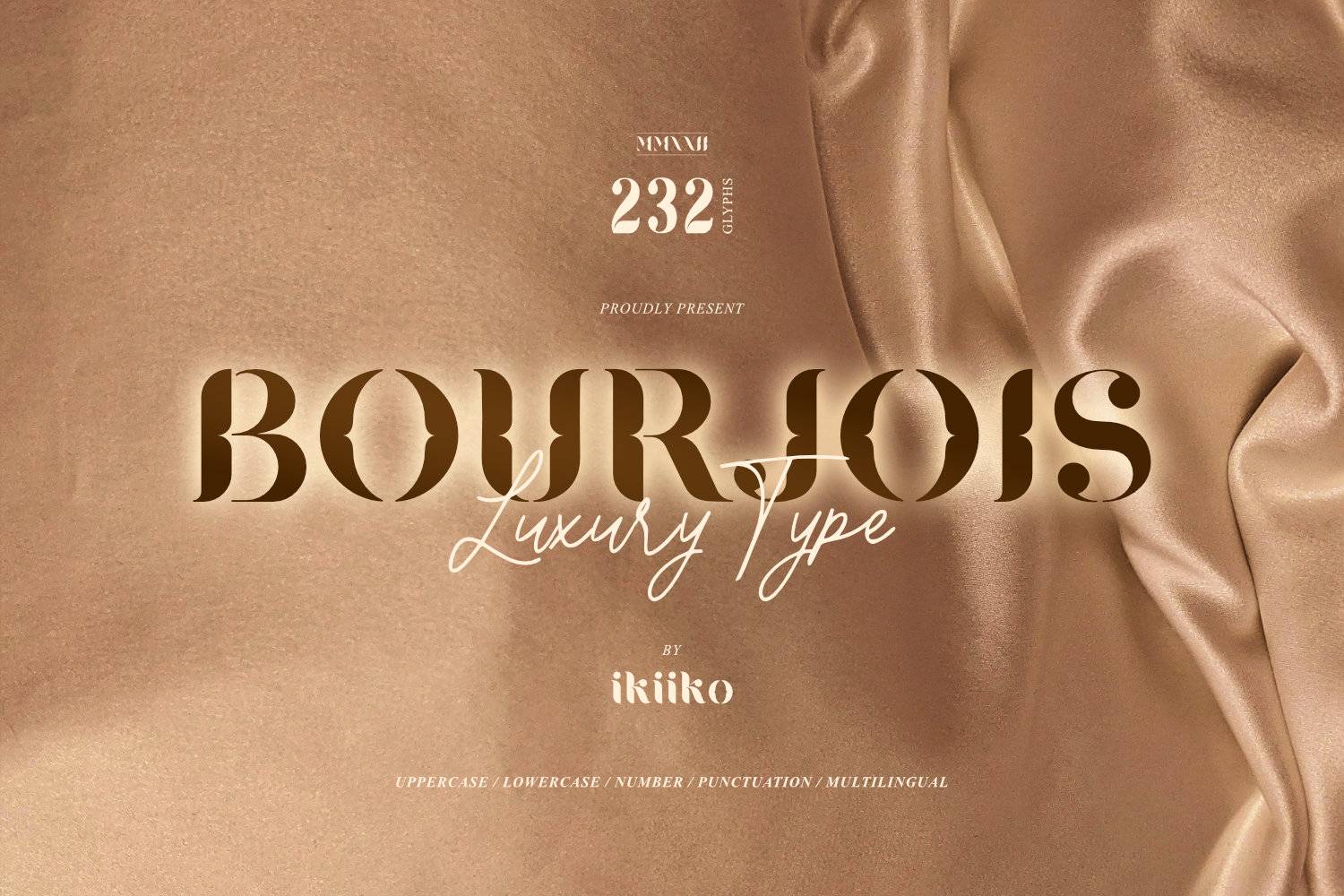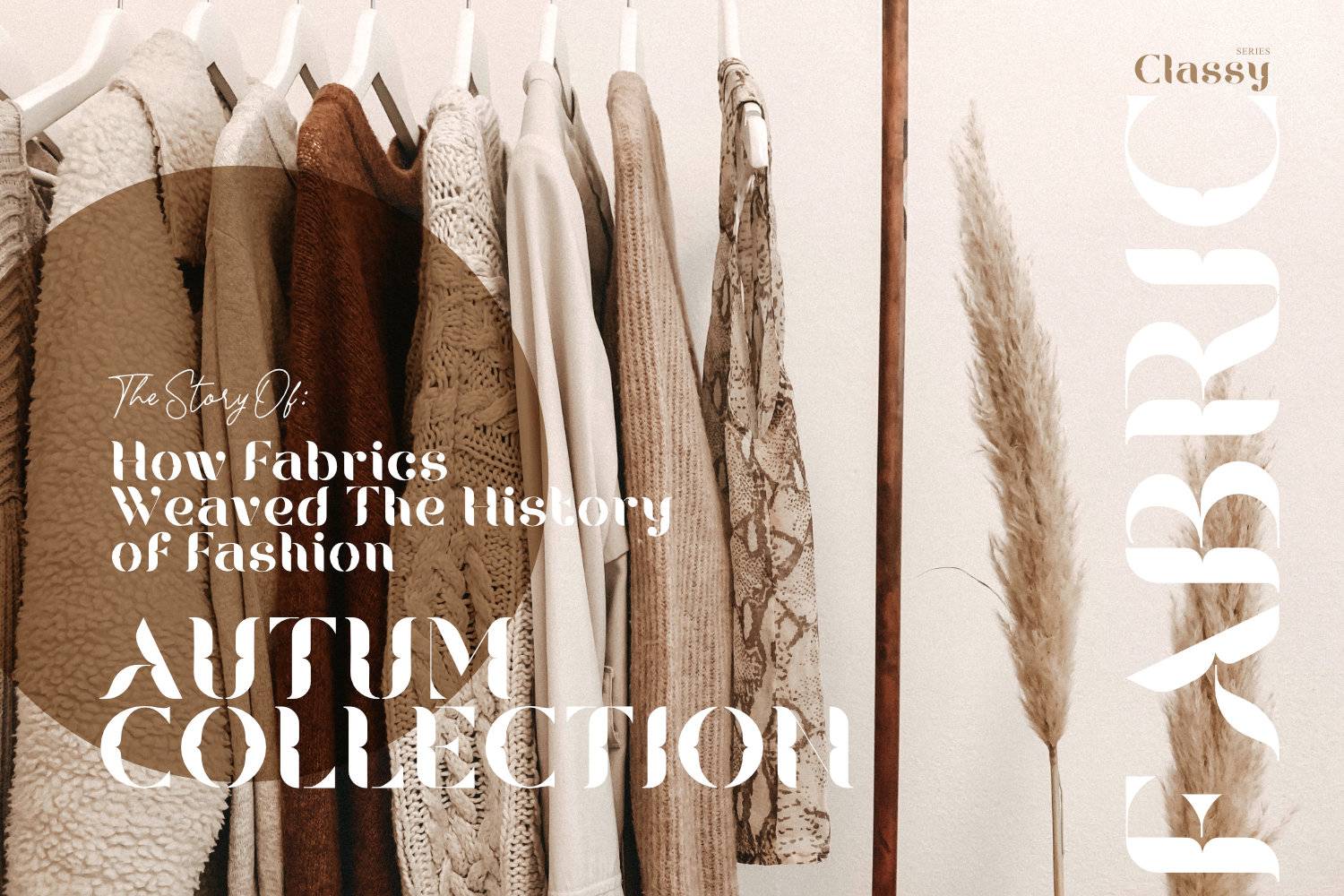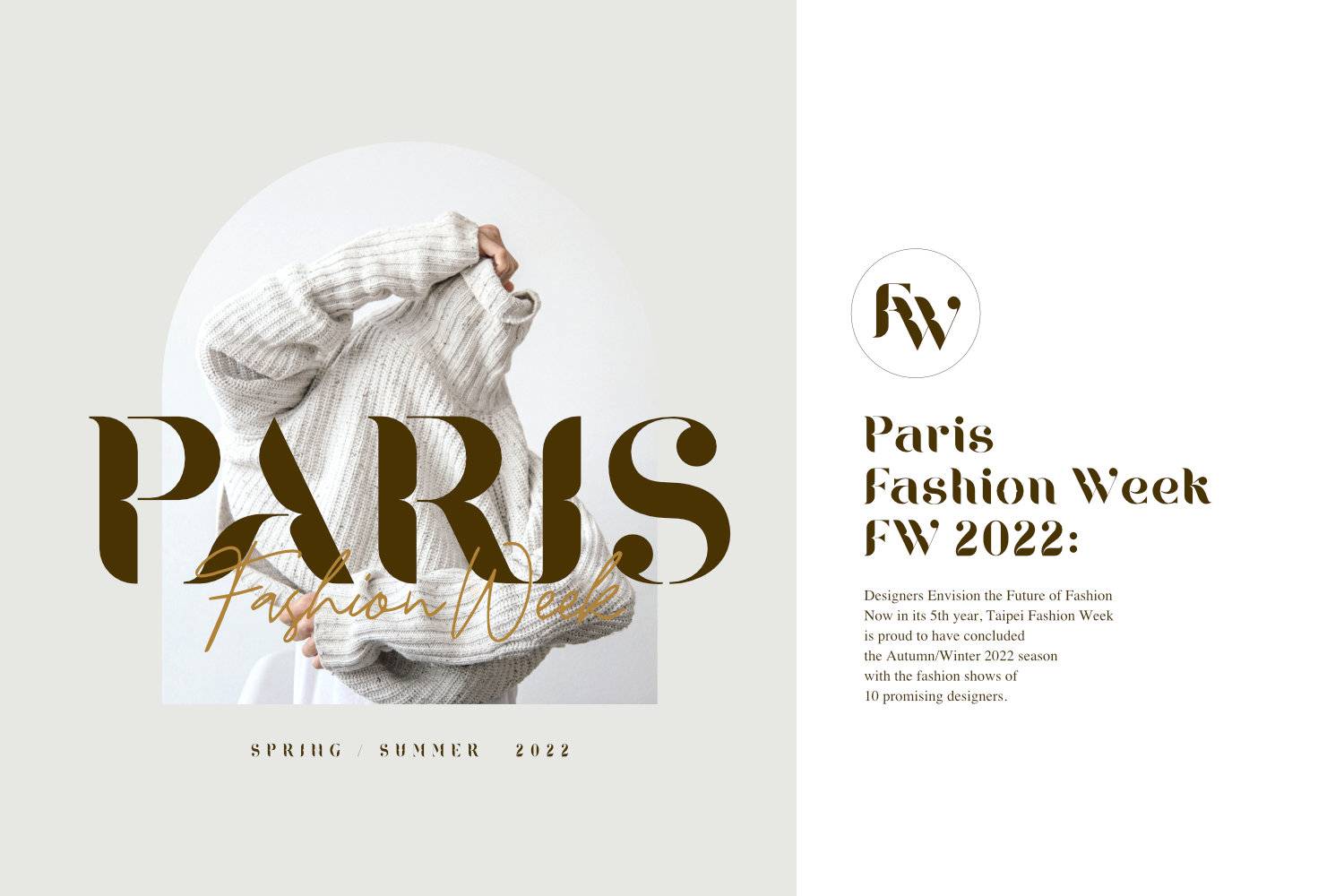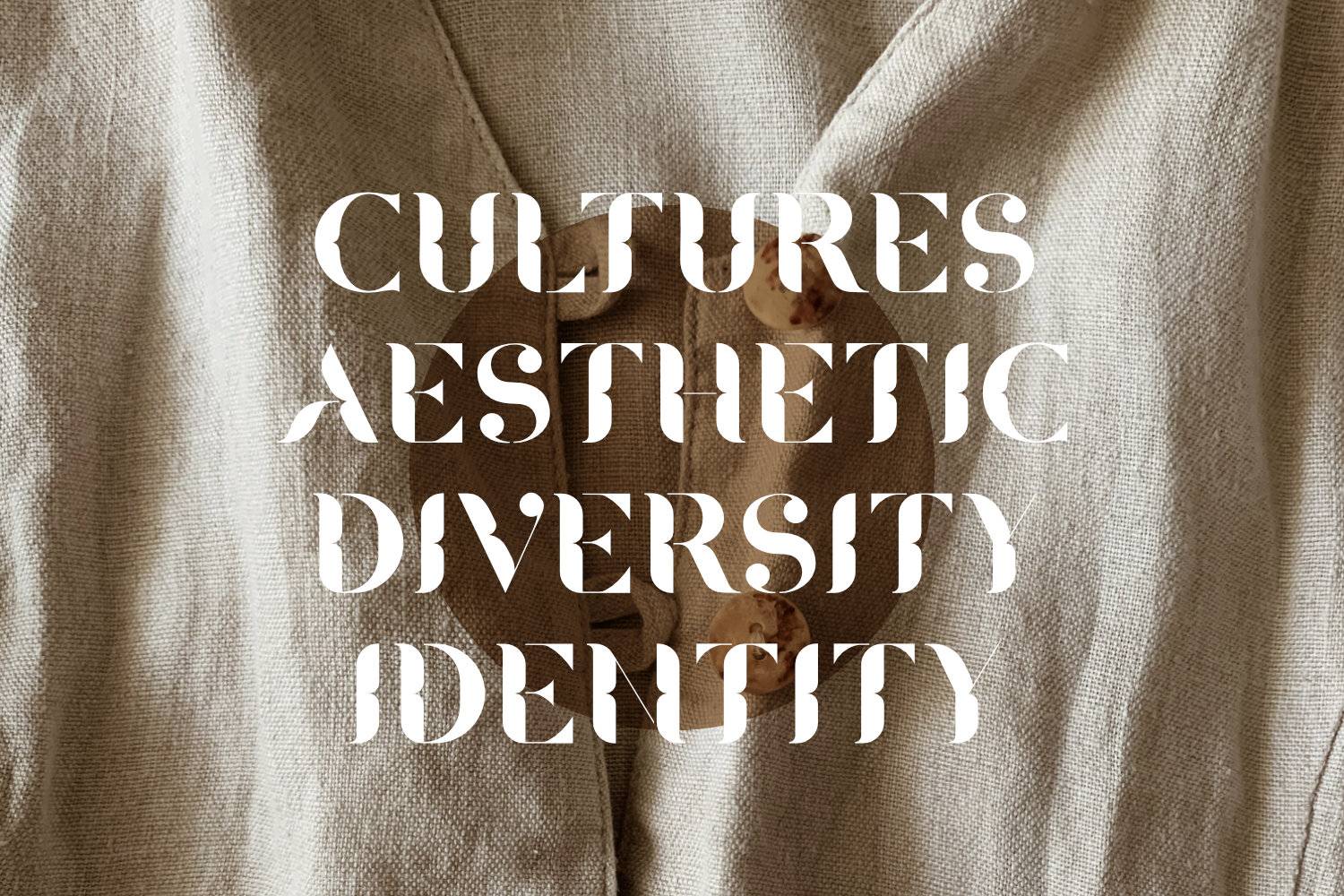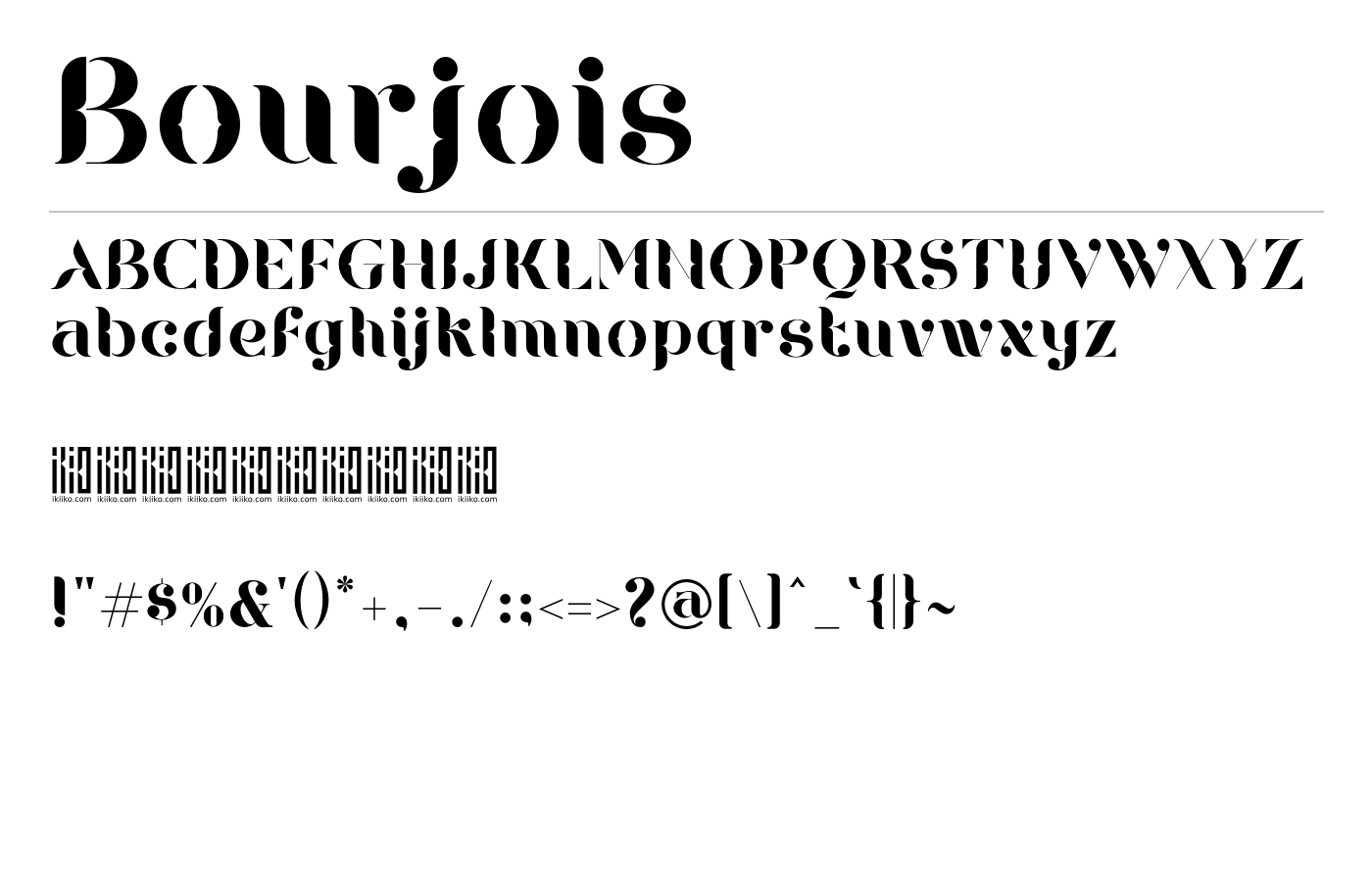
Bourjois is a bold and stylish serif font characterized by high contrast between thick and thin strokes and sharp, modern shapes that give it a luxurious and elegant feel. Its unique letterforms, including distinctive curves and cutouts, make it perfect for branding, fashion, and editorial headlines where a sophisticated yet eye-catching look is desired. This font works best in display uses where its artistic flair can stand out and convey a sense of exclusivity and creativity.
Bourjois Font
About Bourjois Font
| Font family | Bourjois Font |
| Designer | Andhika Pratama, Wahyu Eka Prasetya |